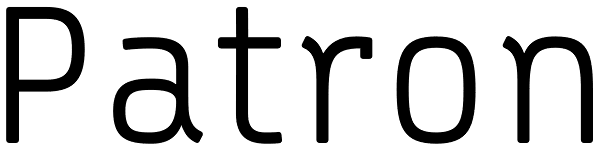
Patron
Patron is a modern, mono-linear, sans-serif font family with large x-height and softened edges containing 12 fonts. This typeface was born as a corporate font design for non-profit sector and today it is available for public. At the moment Patron is...